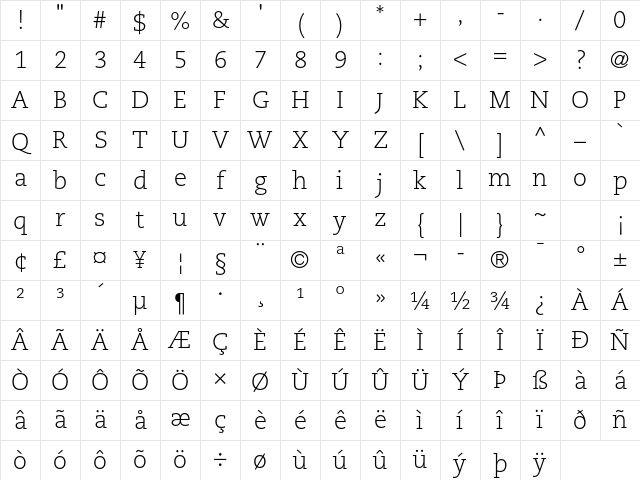
Caecilia LT Std 45 Light
Style: 45 Light
Designer: Peter Matthias Noordzij
Complete Caecilia LT Std 45 Light glyph index. Displaying only characters natively supported by Caecilia LT Std 45 Light font.
Design Context for Caecilia LT Std
Caecilia LT Std is a composed and adaptable typeface that performs quietly and consistently across a wide range of design contexts. Its slender proportions lend an understated elegance to any composition.